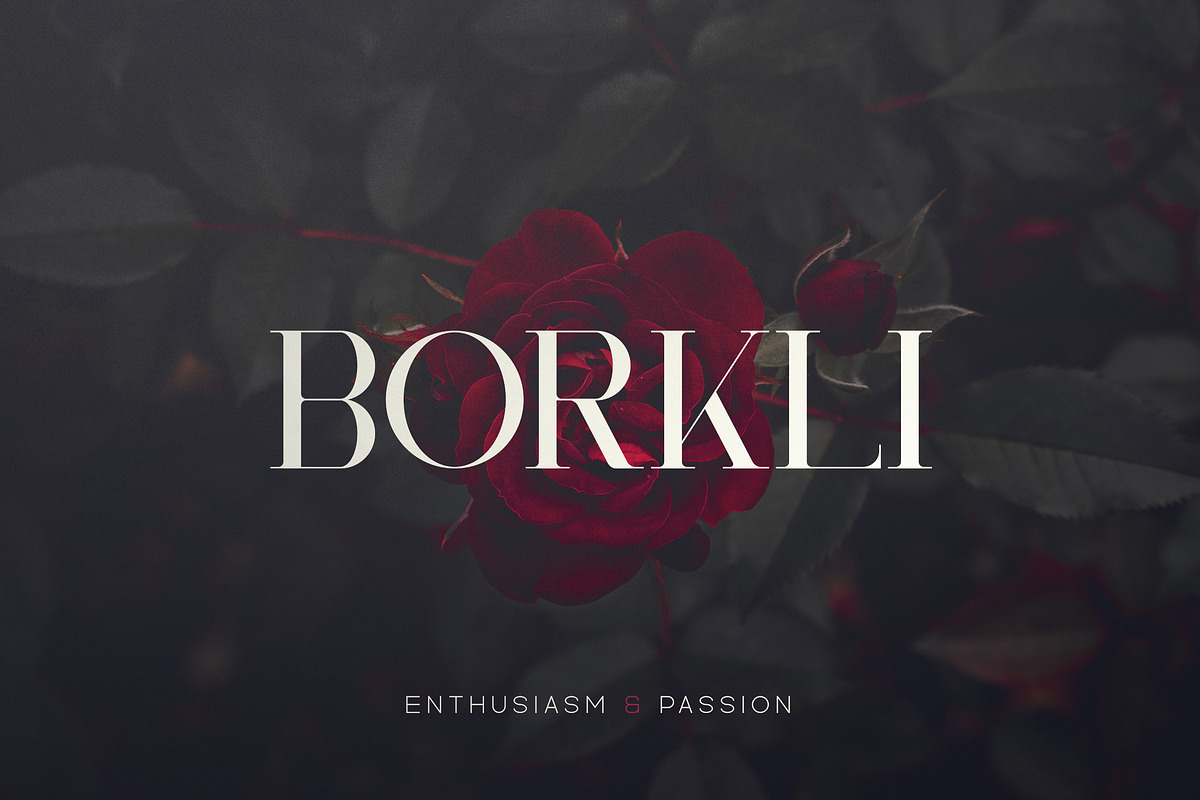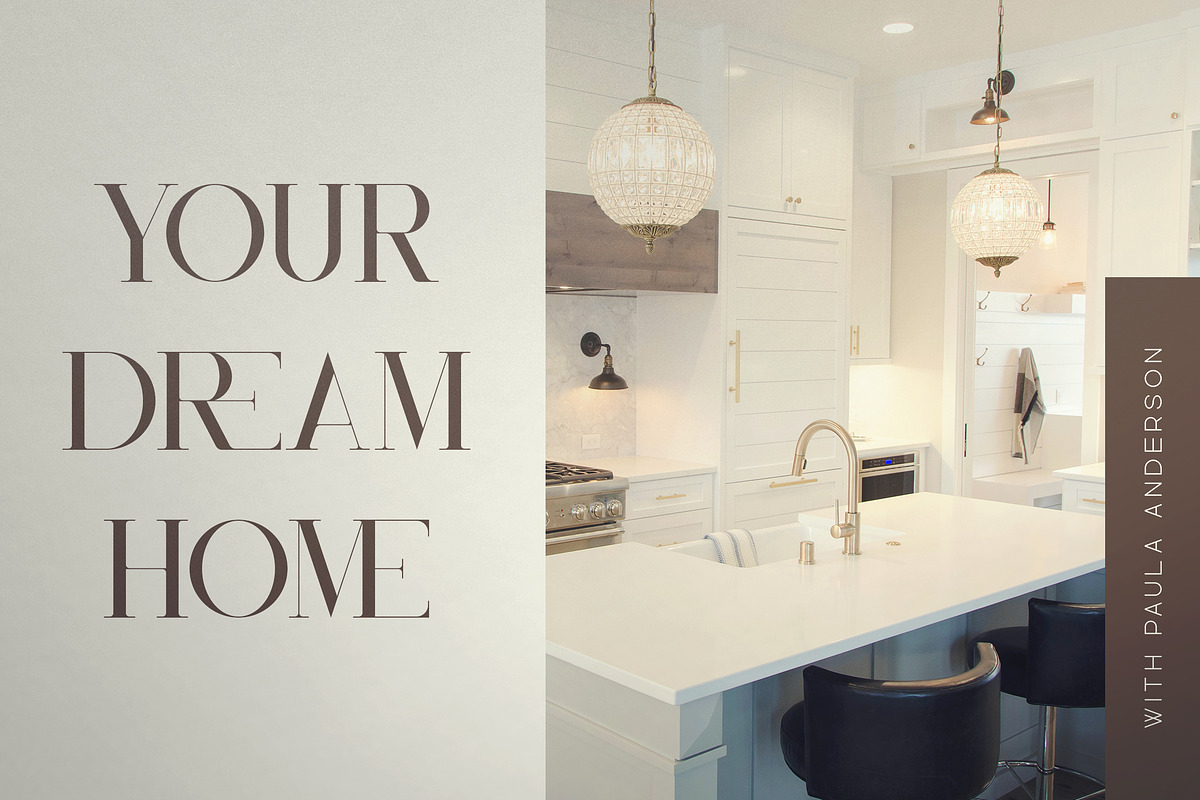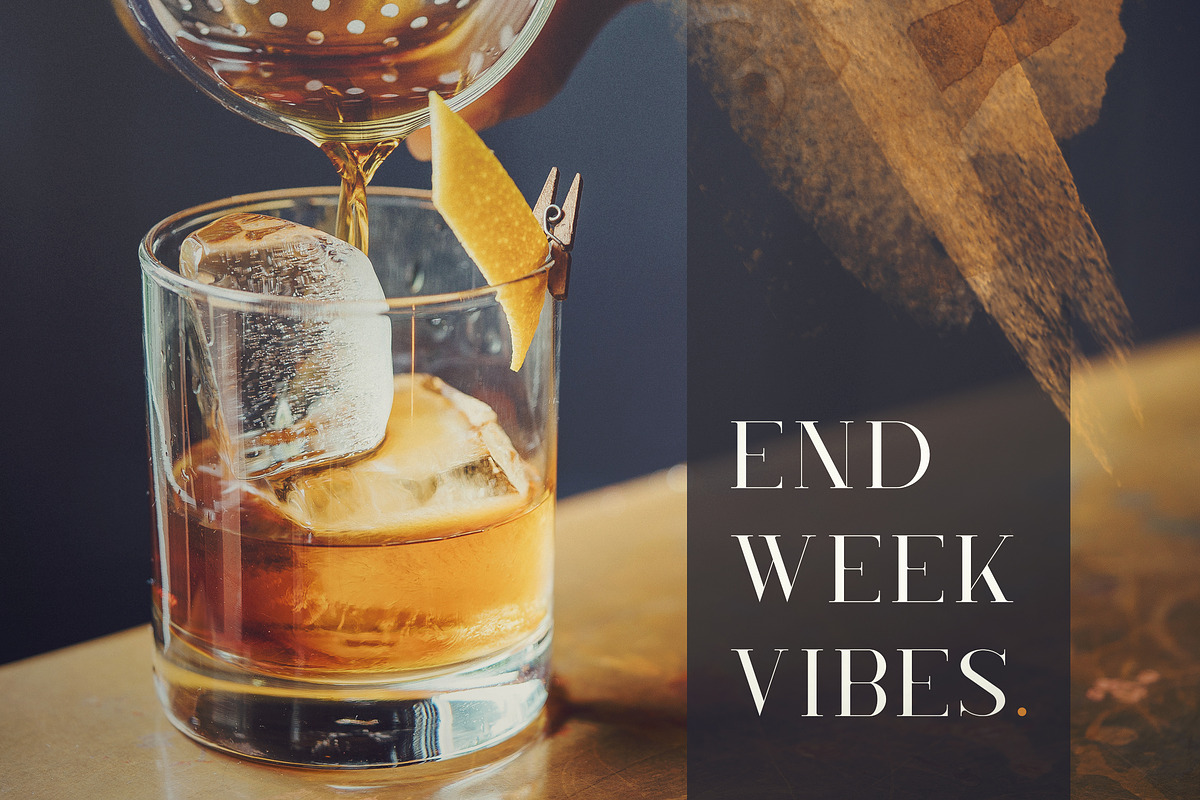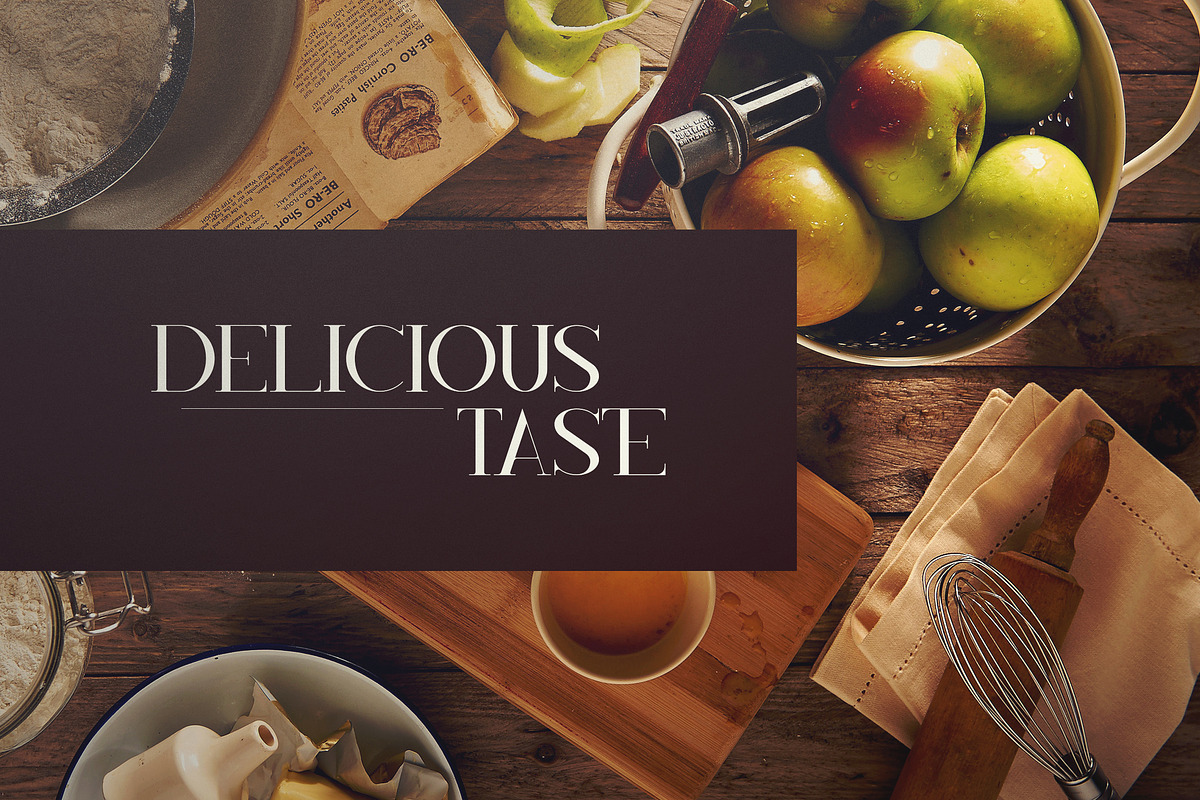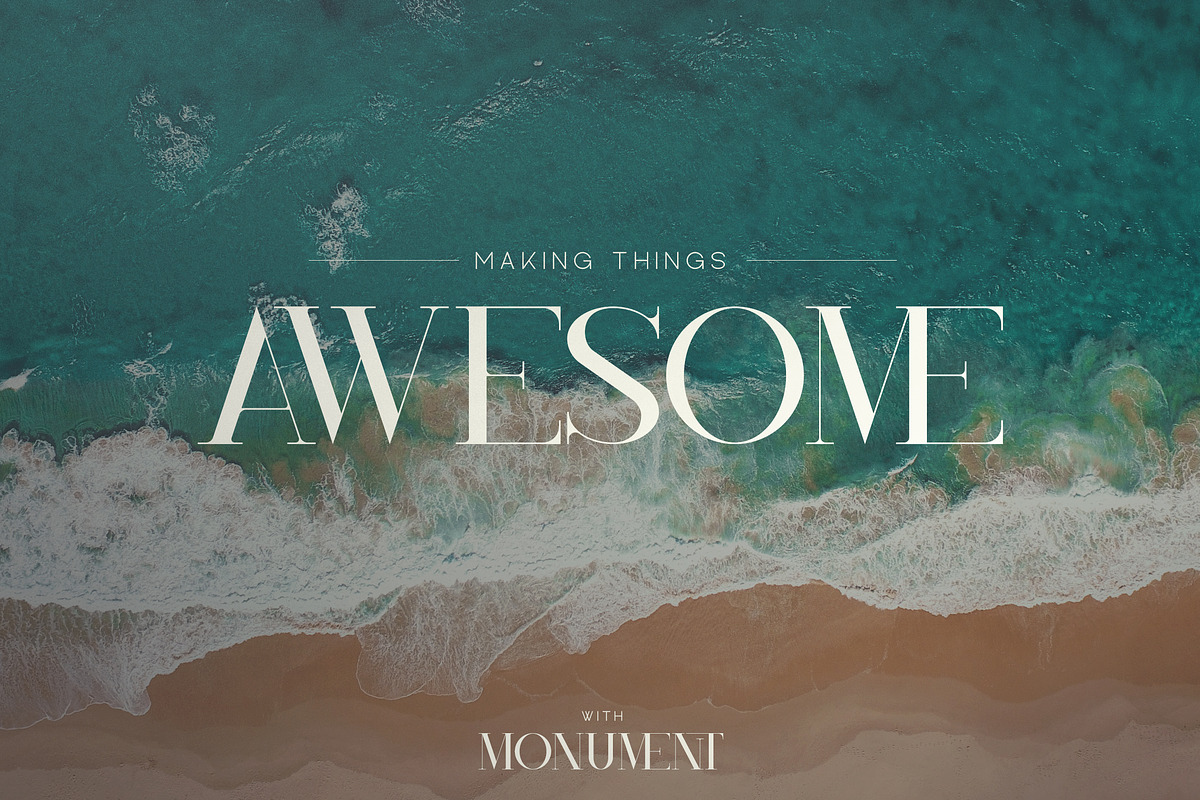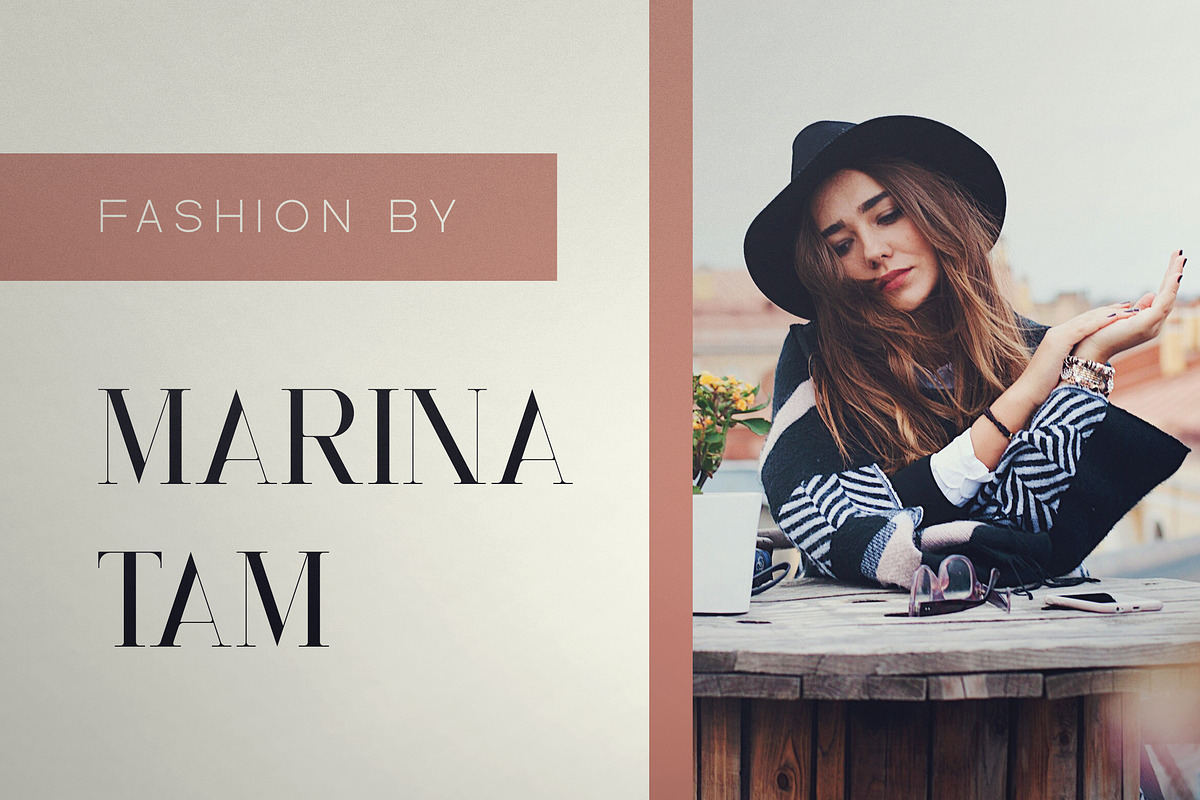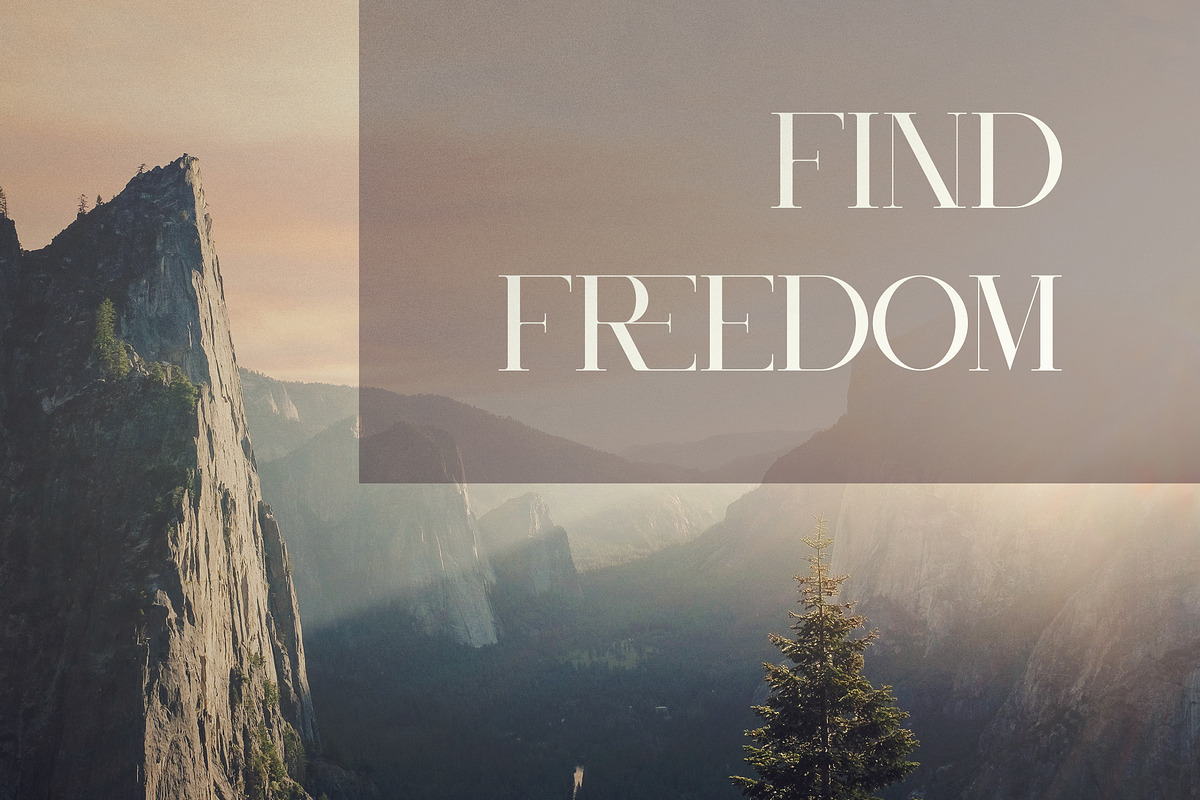
Monument - All Caps Serif Font
INTRODUCING Monument - All caps serif font
Monument is modern, sophisticated typeface with total of 4 font styles, loaded with ligature glyphs and multilingual support. It's a very versatile font that works great in large and small sizes.
Monument is perfect for branding projects, home-ware designs, product packaging, magazine headers - or simply as a stylish text overlay to any background image.
Uppercase, numeral,punctuation & Symbol